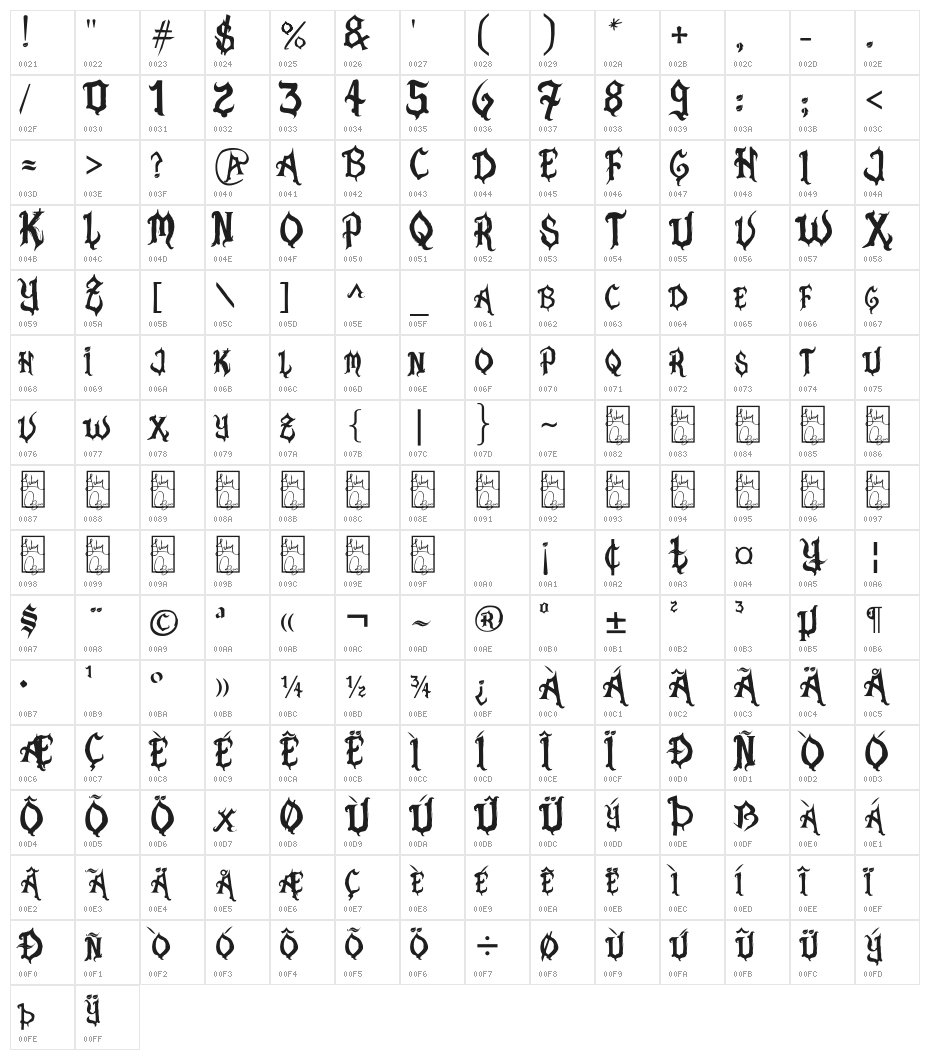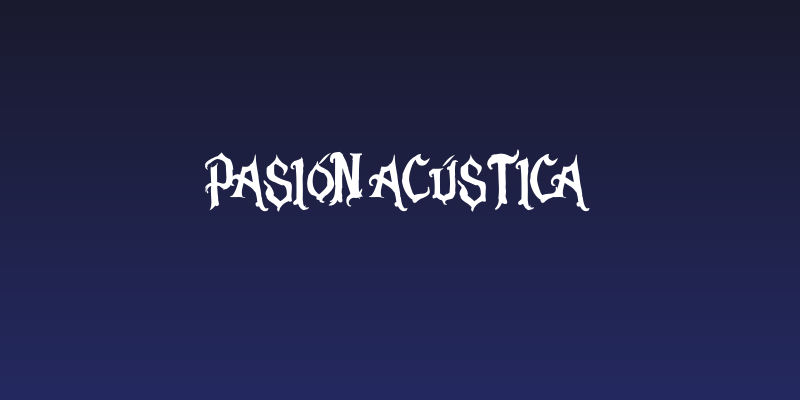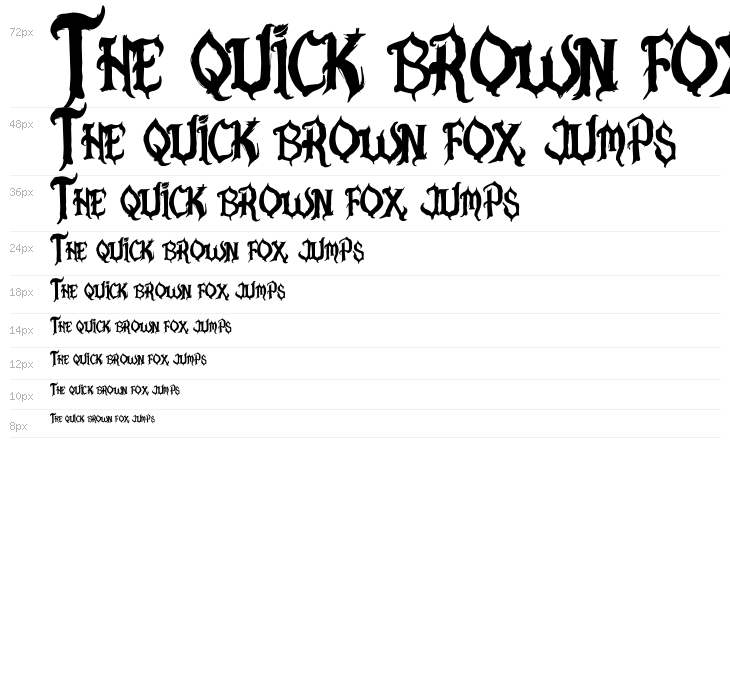
Pasión Acústica Font
Pasión Acústica Description
This font exhibits a striking and bold blackletter style, characterized by its sharp, angular strokes and intricate detailing. The uppercase and lowercase letters maintain a consistent gothic aesthetic, with elaborate serifs and flourishes that evoke a sense of historical elegance. The numerals and special characters are equally ornate, featuring unique curves and angles that complement the overall design. This font's dramatic appearance makes it ideal for projects that require a touch of medieval or vintage flair, such as event posters, book covers, or branding for products with a historical theme.
Overall StyleVintage
Use CaseHeadlines, Logos, Decorative
Proposed ProjectsIdeal for event posters, book covers, branding for historical-themed products, and decorative designs.